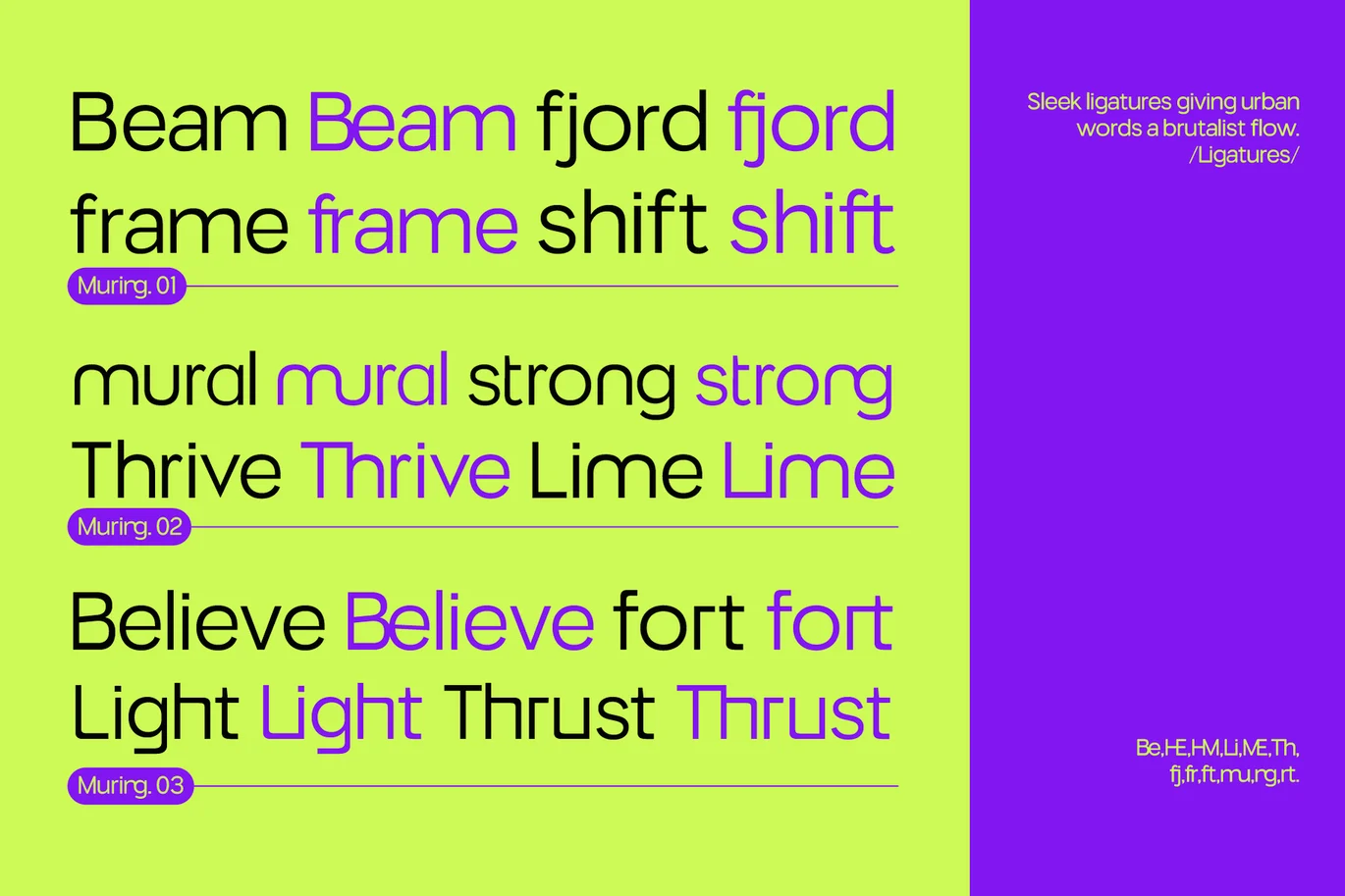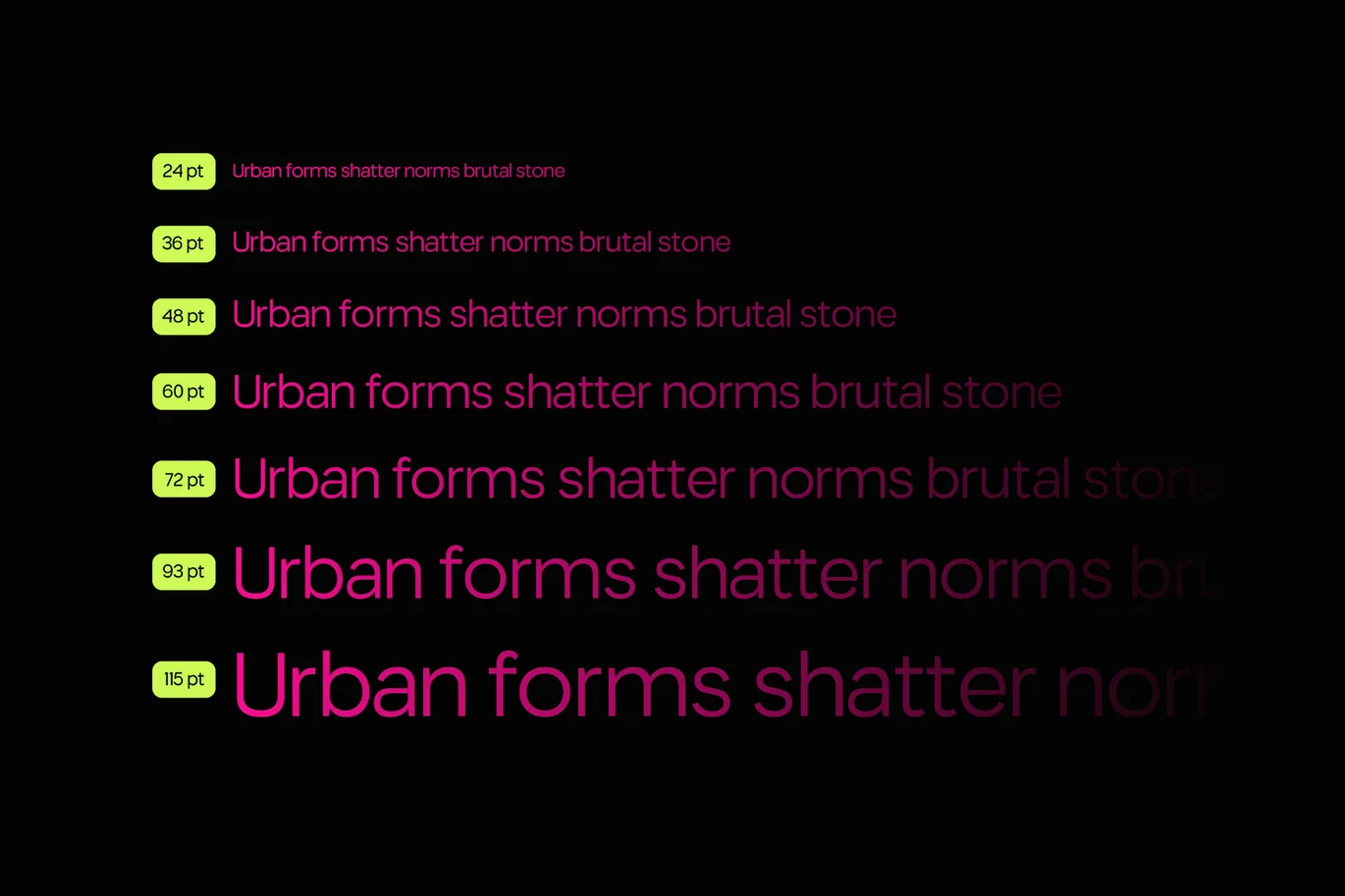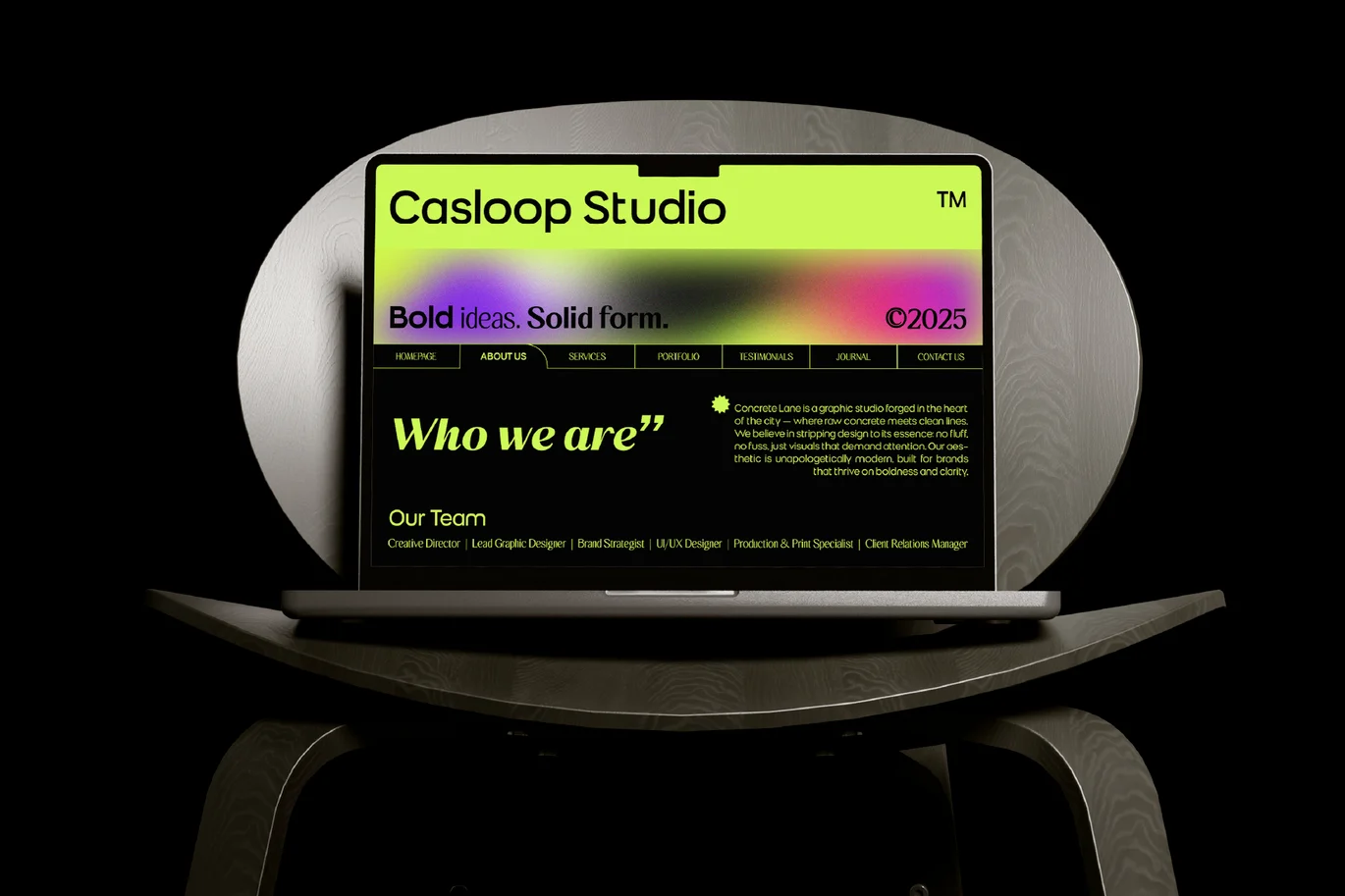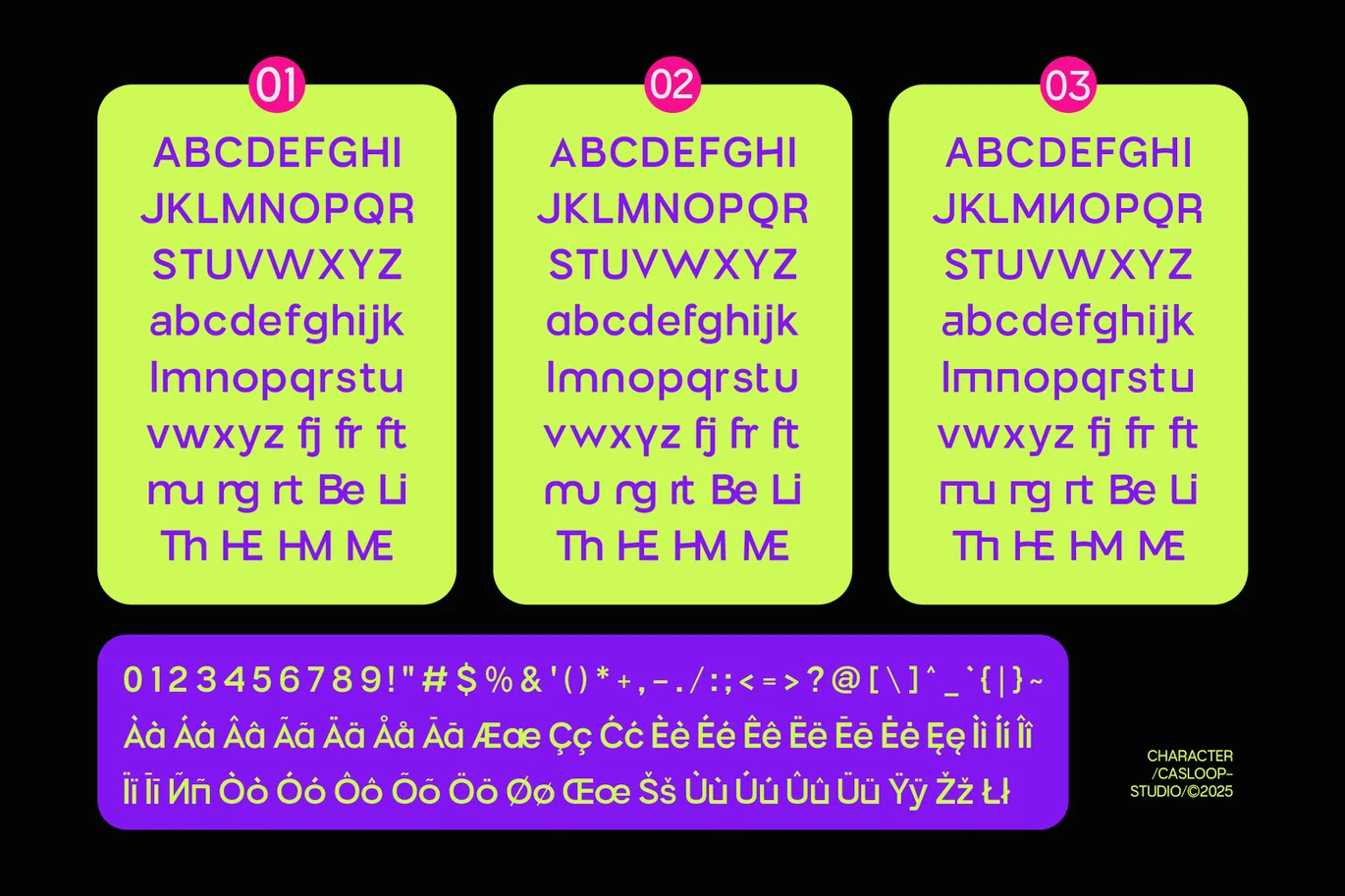
Muring – Modern Brand Identity Brutalist Bold Font
Introducing Muring
Each Muring Font Built in 9 weights (Thin to Black) and available in OTF, TTF, WOFF, WOFF2, and Variable Font, it transitions smoothly across mediums, giving endless room for creative exploration.
- Muring.01 is the raw core of brutalism — heavy, unapologetic, and bold. With its geometric cuts and uncompromising weight, it channels the raw spirit of urban architecture. Perfect for headlines, posters, and any design that wants to stand strong without compromise.
- Muring.02 refines the brutalist skeleton into something more versatile. Still sharp and industrial, but with cleaner alignments and smoother proportions, it’s ideal for editorial grids, digital branding, and UI design where clarity matters as much as strength.
- Muring.03 expands the family with expressive alternates and experimental strokes. It bridges the raw boldness of 01 and the refined control of 02, adding creative flexibility for designers who want urban grit with a distinctive twist — perfect for motion, signage, or bold campaigns.
Personality
- Muring.01 — raw brutalism, heavy bones, bold structure
- Muring.02 — refined balance, clean geometry, adaptable for modern layouts
- Muring.03 — expressive edge, experimental alternates, urban attitude
Feels like: concrete walls, street architecture, industrial grids, neon-lit signage, editorial spreads, billboard scale
Best For:
- Branding & corporate identity
- Editorial & magazine layouts
- Posters, signage & billboard campaigns
- UI/UX & digital platforms
- Motion & text animation
From raw power to refined clarity and expressive alternates, the Muring Series is a complete brutalist type system. Whether you need architectural strength, clean adaptability, or bold experimentation, Muring gives your words the edge of modern urban design.
Concrete turned into letters — looped with Casloop effect.